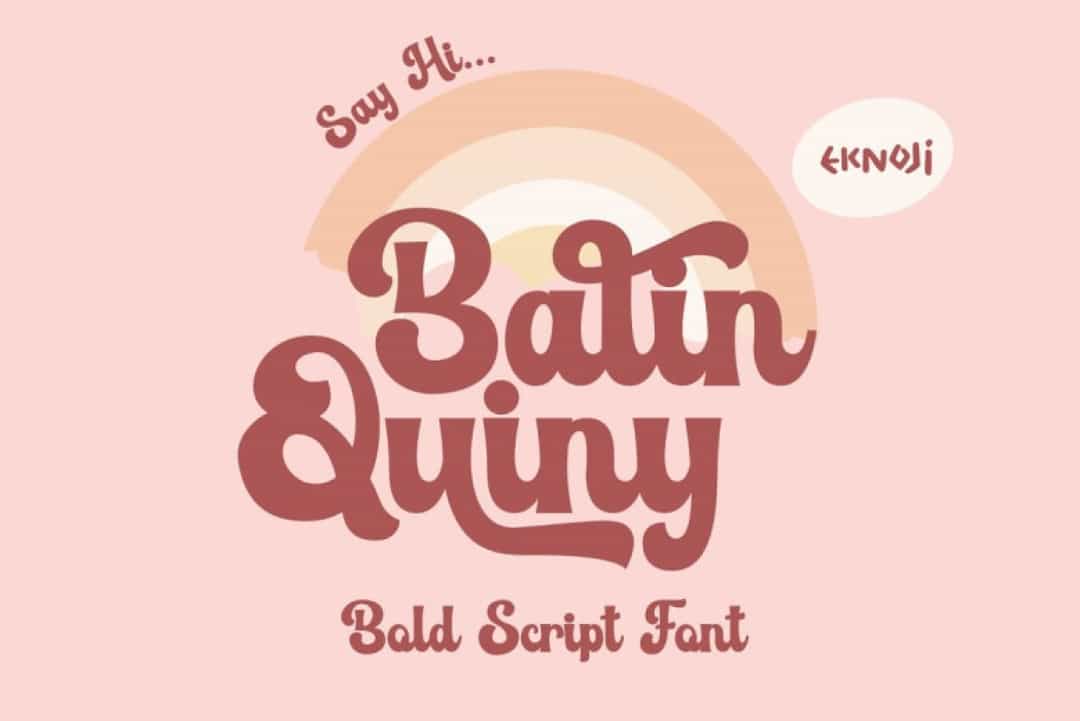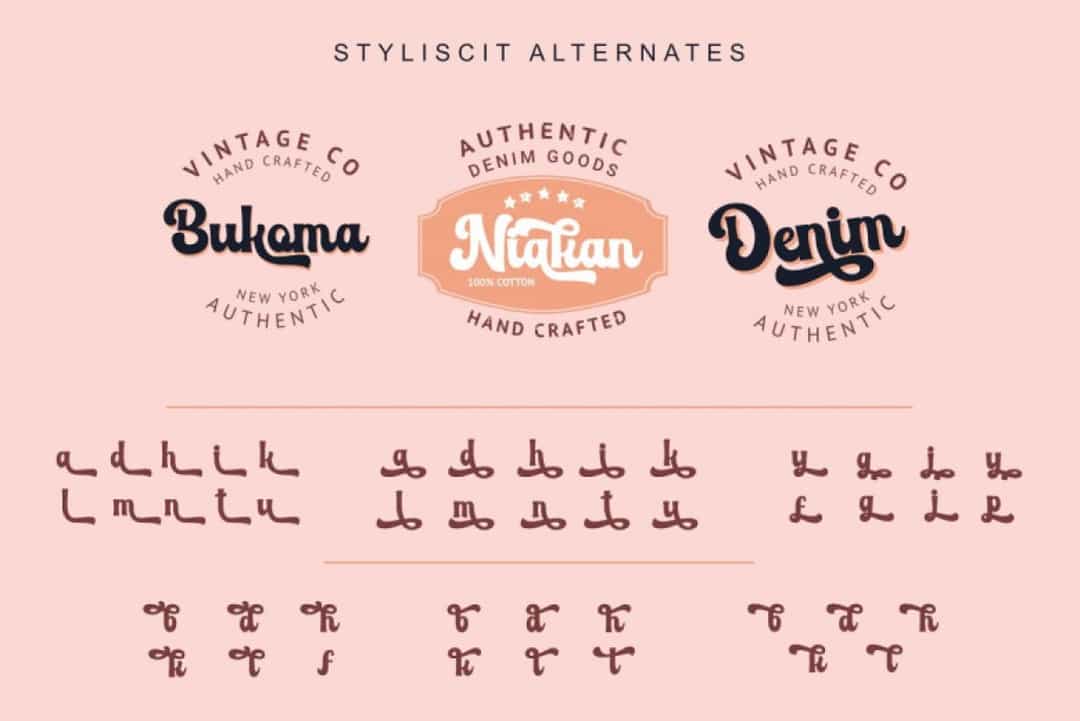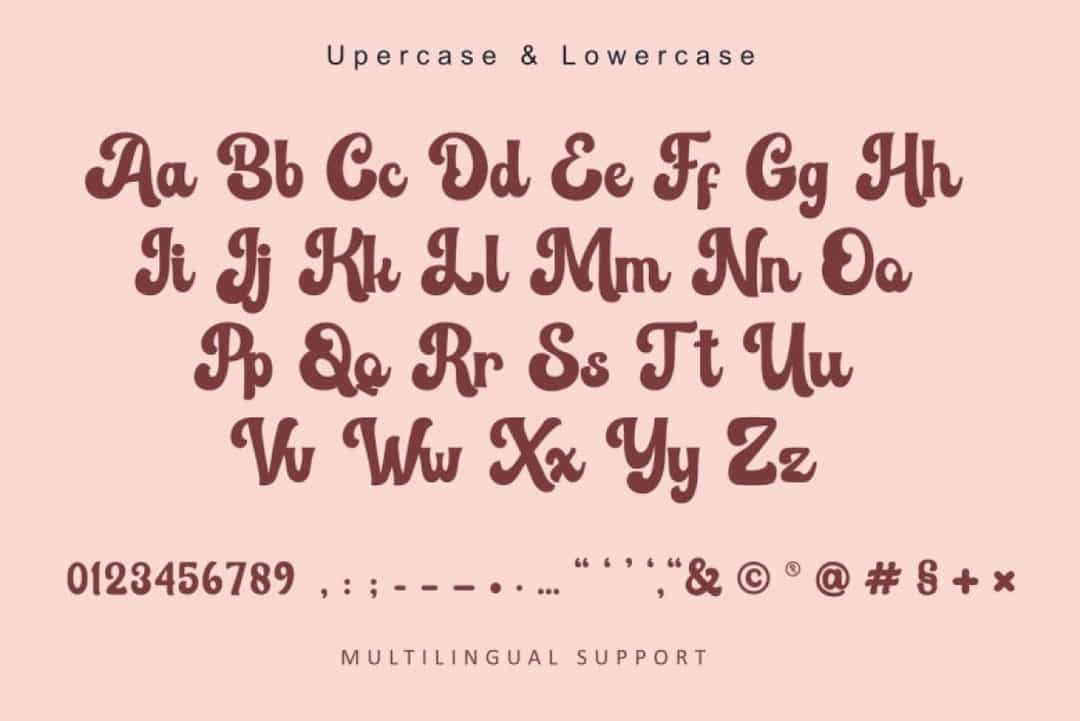
Balin Quiny can be described as an elegant and striking script calligraphy font designed to add a vintage aesthetic to headlines and logotypes. This font’s solid, confident, and lively appearance will add plenty of warmth and nostalgia for your design projects. What’s more, its PUA coded format means easy access to its large assortment of characters and ligatures!